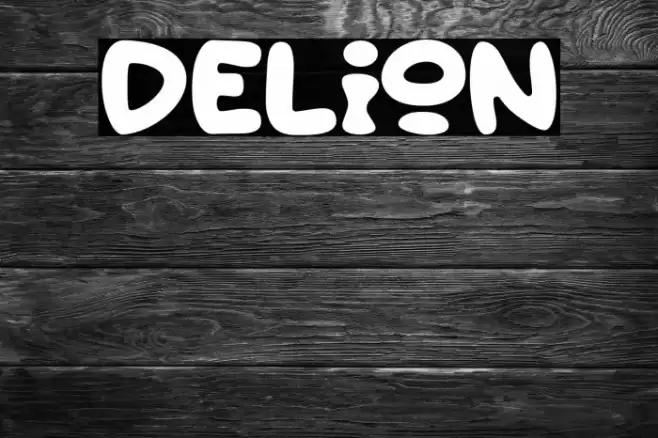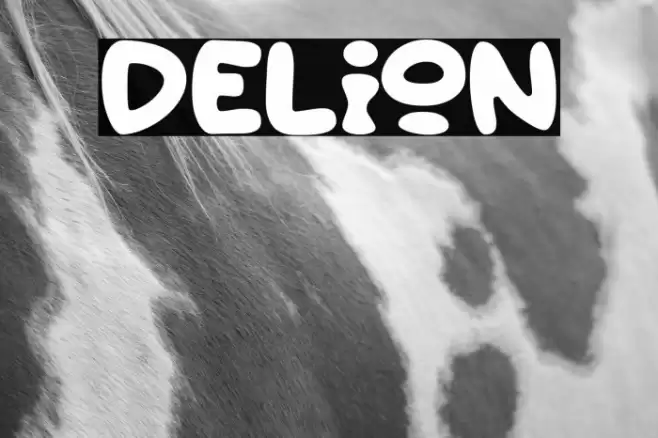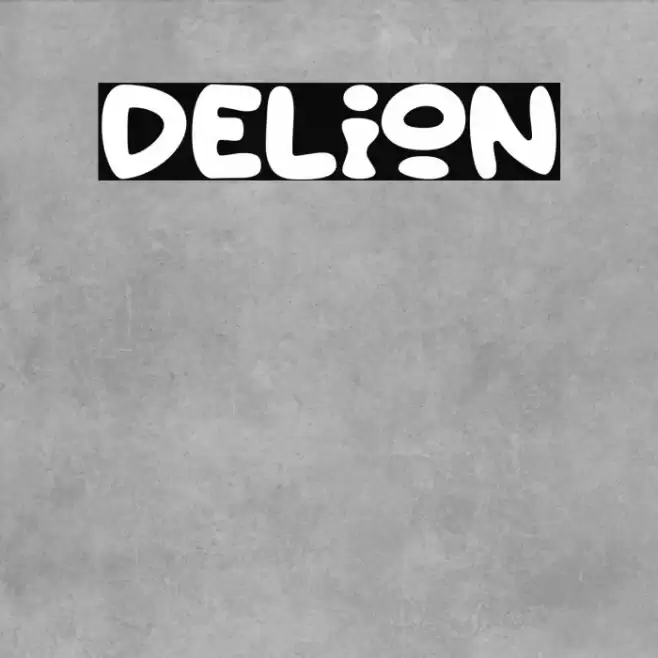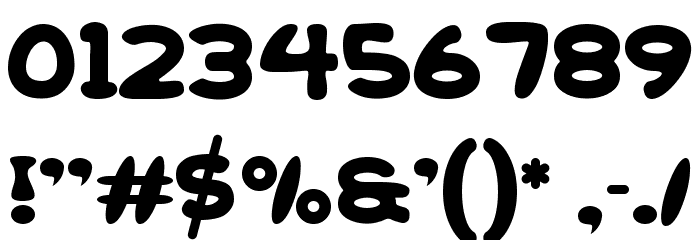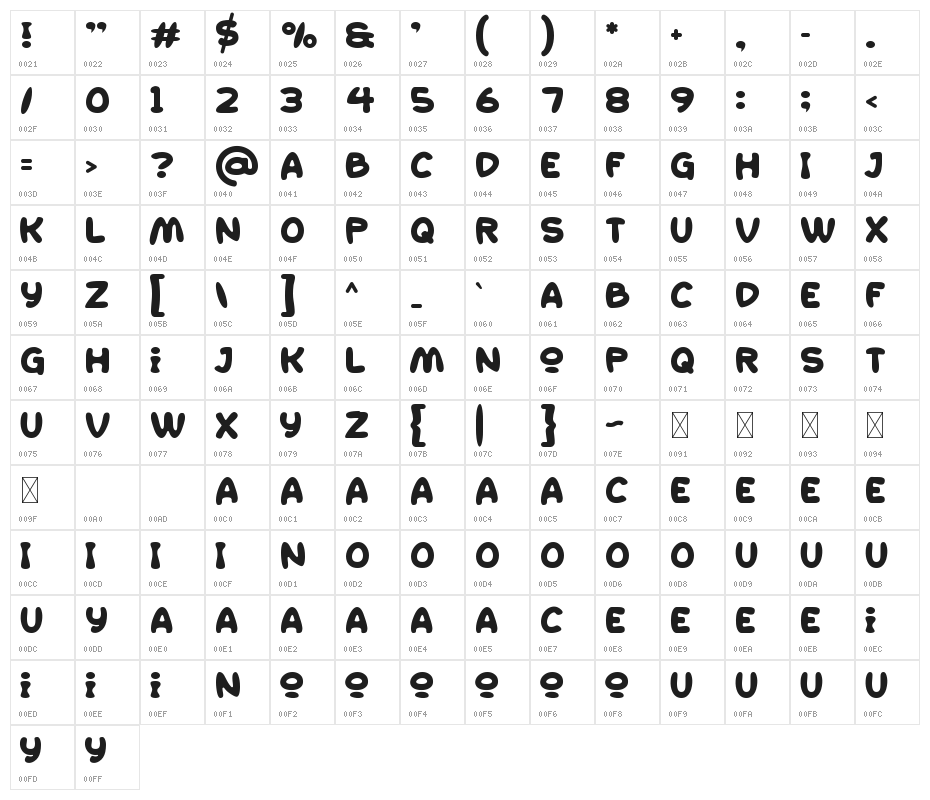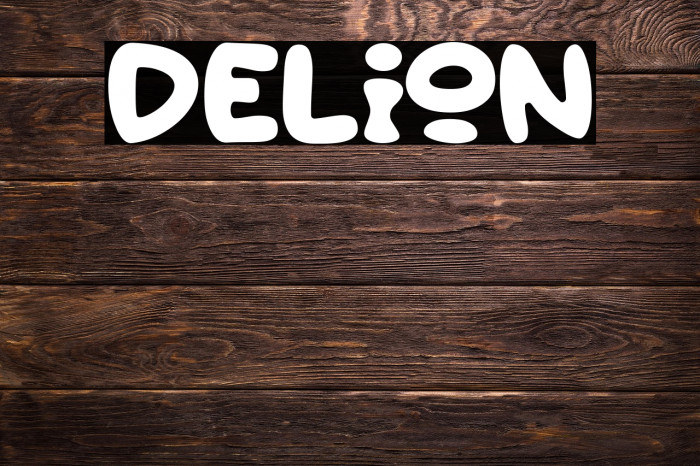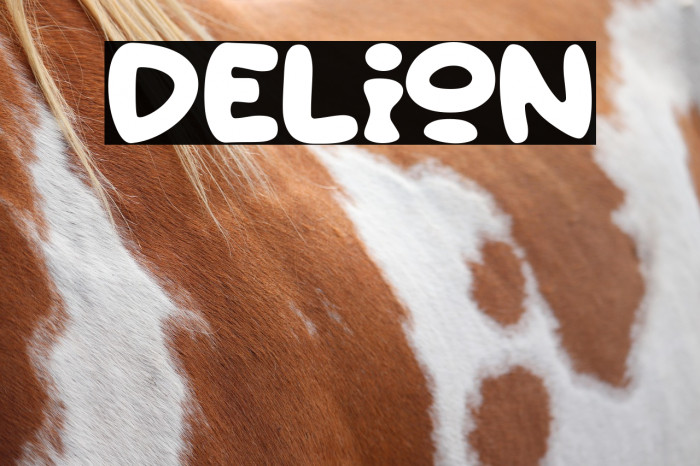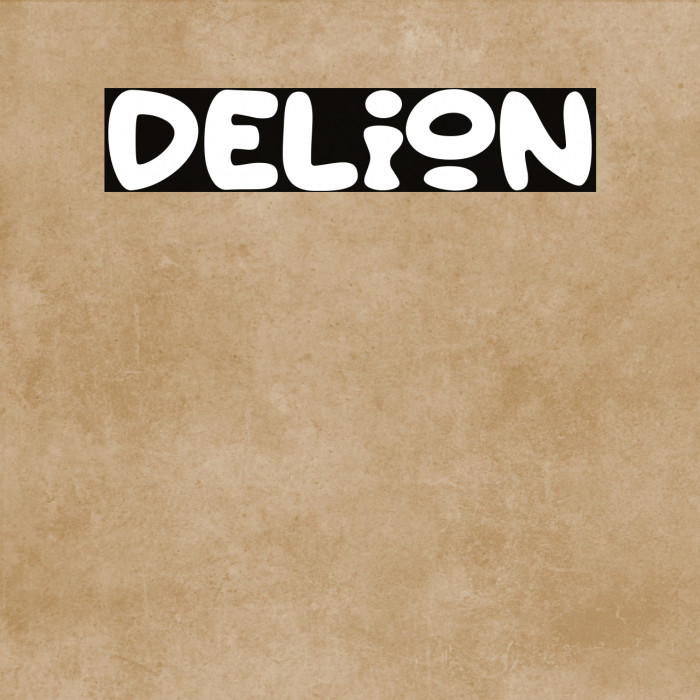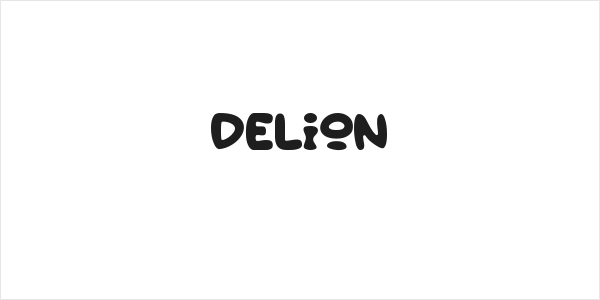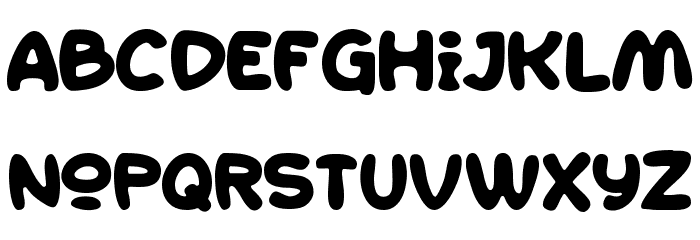
Delion Font
Delion Description
This playful and bold font features rounded, bubble-like characters that convey a sense of fun and whimsy. The letters are thick and have a uniform stroke width, giving them a strong presence on the page. The overall design is smooth and flowing, with each character maintaining a consistent style that enhances readability while adding a touch of personality. The numbers and special characters follow the same design principles, ensuring a cohesive look across all elements. This font is ideal for projects that require a lively and engaging aesthetic.
A bold, rounded font with a playful and whimsical style from Uncategorized fonts.
- Proposed Projects: Ideal for children's books, playful branding, party invitations, and creative posters.
- Overall Style: Playful